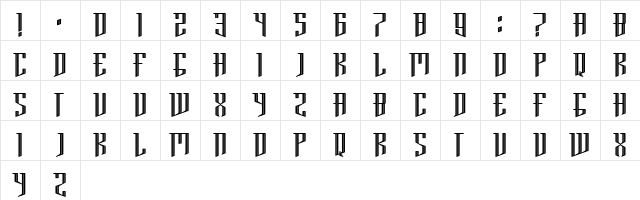
Brooklyn Inline
| Style | Inline |
| Foundry | PYRS Fontlab Ltd. / Made with FontLab |
| Designer | Paul Reis |
Design Context for Brooklyn Typeface
Brooklyn brings ornamental detail and strong personality to headlines and identities, where visual impact matters more than quiet functionality.
Font Pairing: Pair with a clean neutral sans-serif for body copy to let Brooklyn's character lead without overwhelming the composition.
Pro Tip: Use Brooklyn exclusively at display sizes — it was designed to be seen, not read at length. Let a neutral companion handle body copy.